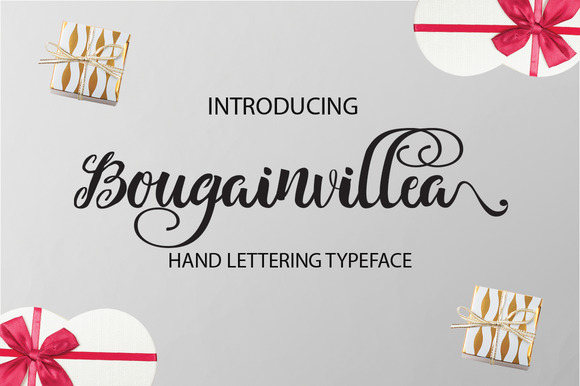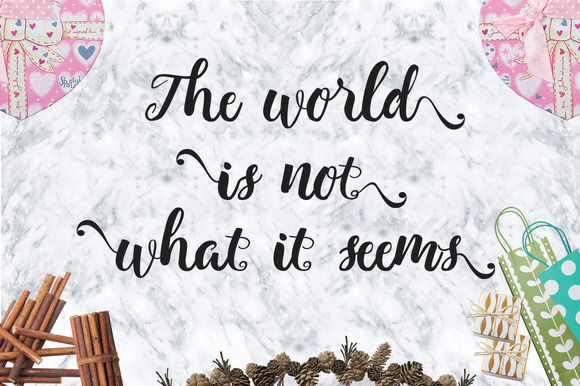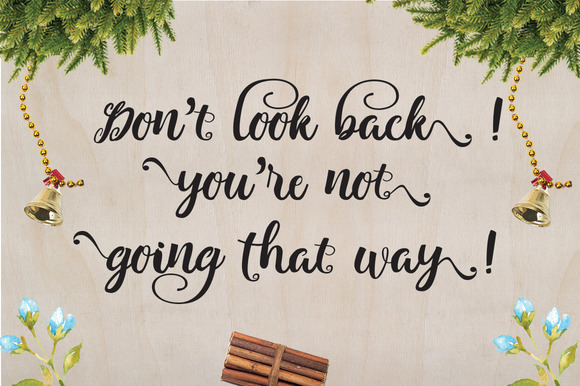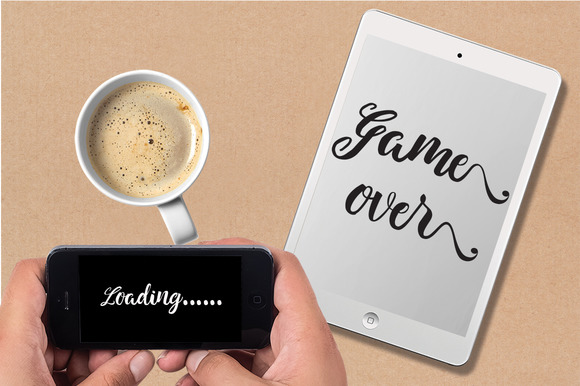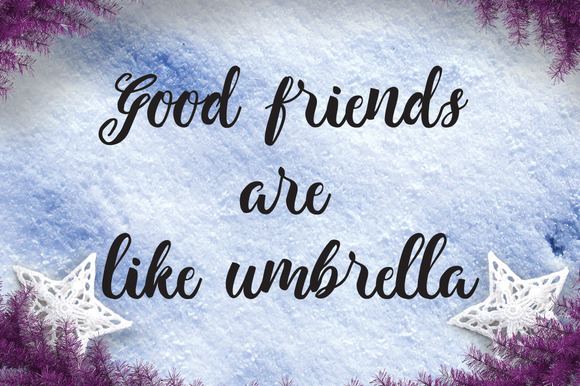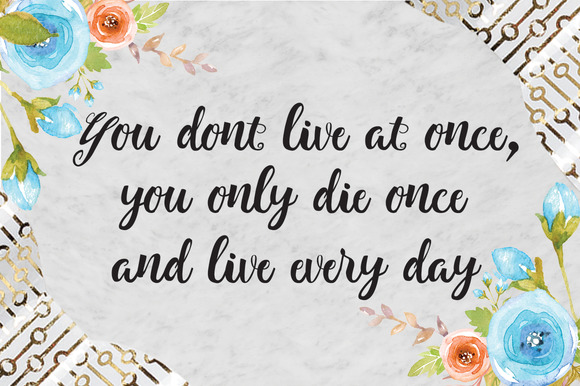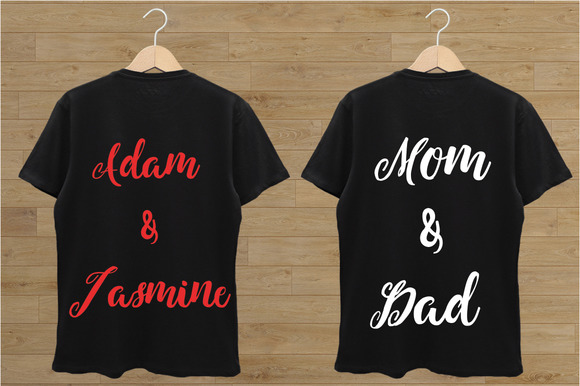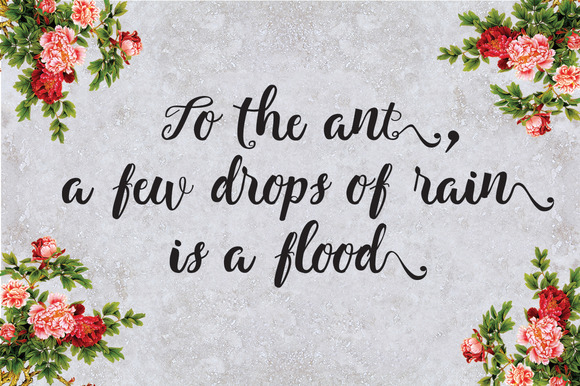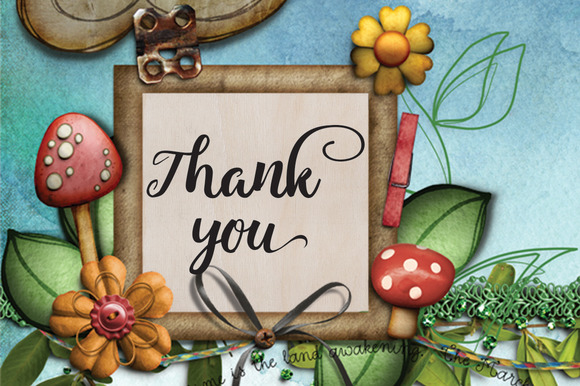
Bougainvillea Font
About Bougainvillea Font
Bougainvillea is an elegant hand lettering typeface that can be used for various purposes such as posters, t-shirts, letterheads, logos, labels, wedding invitations, cards, and anything else you can imagine with this font.